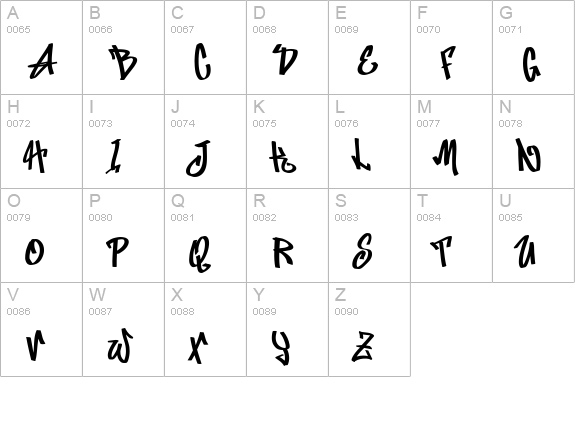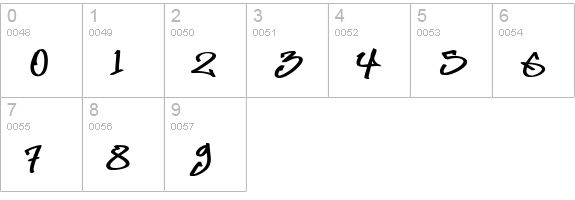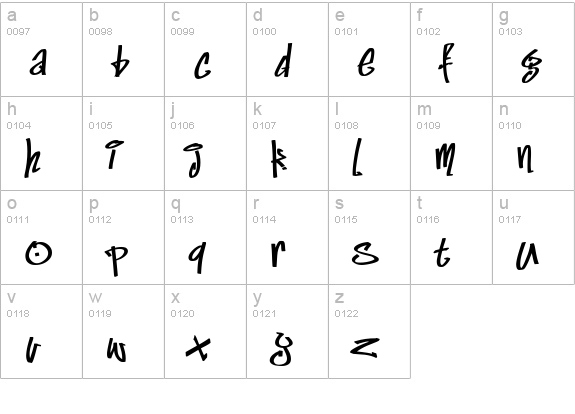
Marker Fat Font Details
Marker Fat font is a striking and bold typeface that exudes a sense of energy and creativity. Its thick and chunky strokes give it a distinct marker-like appearance, making it perfect for eye-catching headlines, logos, and graphic designs that demand attention. This font's unique and expressive style is ideal for projects that require a touch of playfulness and spontaneity. Whether you're working on a poster for a music festival, designing a logo for a vibrant startup, or creating digital artwork with a graffiti-inspired edge, Marker Fat font will elevate your designs and make them stand out from the crowd. One of the best things about Marker Fat font is that it is freely available to download at FontsMarket.com. This means that you can access and use this amazing font without any cost or hassle. Its availability as a free download makes it a valuable asset for both professional designers and hobbyists alike. With Marker Fat font, you have the freedom to experiment and explore your creative ideas without limitations. Its bold and energetic aesthetic allows you to make a statement and leave a lasting impression. So why wait? Download Marker Fat font now from FontsMarket.com and unleash your creativity with this incredible typeface.